15 Best Free Fonts of 2026 You Can't Miss for Stunning Designs
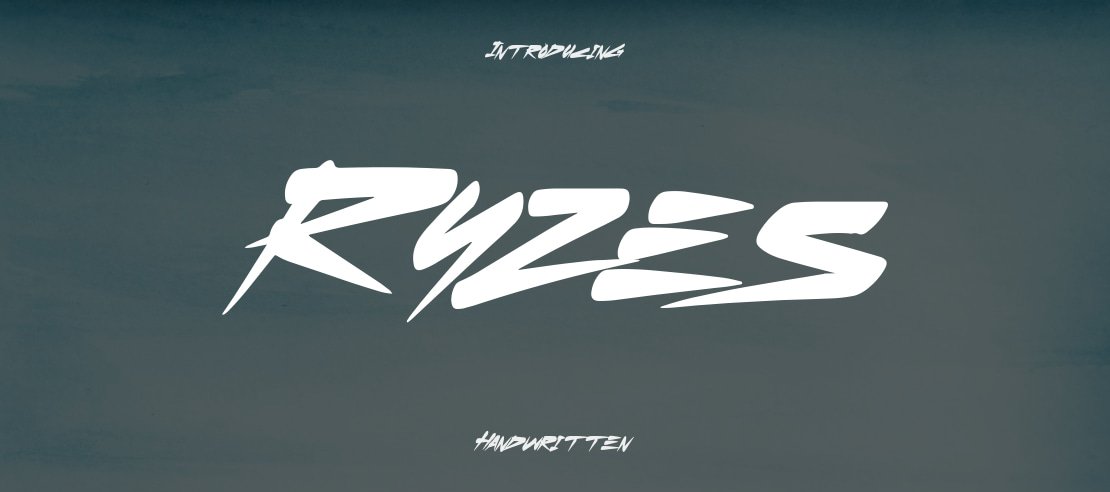
Introduction
Free fonts have transformed the design landscape dramatically. What was once a compromise between budget and quality has become a legitimate pathway to professional typography. Foundries now release impressive typefaces under free licenses, challenging assumptions about what complimentary means. The best free fonts available in 2026 rival premium offerings in both quality and versatility.
Typography remains foundational to effective design. Font choice establishes mood, communicates hierarchy, and guides reader attention. Whether designing websites, crafting branding materials, or producing print collateral, the right typeface elevates work significantly. These free options provide professional foundations without licensing concerns.
Why Free Fonts Matter in 2026
The evolution of free fonts reflects broader changes in creative industry economics. Designers increasingly work across projects with varying budgets. Free fonts provide professional options for pro bono work, personal projects, and client projects with limited font budgets. This accessibility democratizes design quality across the industry.
Quality foundries releasing free fonts build audiences and reputations. Many designers discover foundries through free offerings and subsequently purchase premium releases. This model benefits everyone — designers access quality typography, foundries build markets. The ecosystem continues strengthening as a result.
Technology enables this transformation. Distribution through websites makes discovery easy. Variable font technology enables single-file fonts with unprecedented flexibility. Web font delivery removes installation barriers. These advances make free fonts more practical than ever.
Ryzes Font
Ryzes Font exemplifies modern typography done correctly. Clean lines intersect with contemporary aesthetic creating versatile letterforms. The design balances geometric precision with subtle personality, working equally well in digital interfaces and print applications. Both headline and body text benefit from carefully considered x-height and proportion.
Designers value Ryzes for its adaptability. Tech companies appreciate the contemporary sensibility. Lifestyle brands find approachable sophistication. Minimalist projects gain structure without coldness. The typeface provides solid foundation accommodating various design directions without competing for attention.
Practical applications span diverse contexts. Website headers gain immediate professionalism. Print collateral achieves refined appearance. Brand identity systems benefit from consistent typographic voice. Ryzes delivers reliable performance across applications, making it a valuable addition to any font library.
The Destiny Font
The Destiny Font merges elegance with creative expression. Distinctive letterforms feature flowing curves and refined details adding sophistication to any project. The design excels in contexts requiring personality beyond generic typography — wedding invitations, luxury branding, editorial layouts.
The typeface balances classic inspiration with contemporary sensibility. This dual nature allows successful application in traditional and modern contexts. Projects needing personality without sacrificing professionalism benefit substantially. The font communicates considered design judgment immediately apparent to viewers.
Branding projects particularly benefit from The Destiny's distinctive character. Product packaging gains premium perception. Service businesses communicate refined capability. Editorial content achieves sophisticated presentation without premium font investment.
Aldo Sans
Aldo Sans delivers modern condensed typography for professional applications. The font family offers multiple weights, providing flexibility across design needs. Sleek, professional appearance suits corporate communications, tech companies, and minimalist brands seeking contemporary refinement.
Condensed structure maximizes impact within limited horizontal space. Headers achieve strong presence without excessive width. Navigation elements gain clarity without overwhelming surrounding content. Editorial layouts accomplish density while maintaining readability.
Professional projects requiring sophisticated simplicity find Aldo Sans invaluable. The typeface communicates competence and contemporary sensibility. Brands seeking modern refinement without trendy novelty achieve appropriate typographic voice. The font performs consistently across applications, from corporate presentations to digital interfaces.